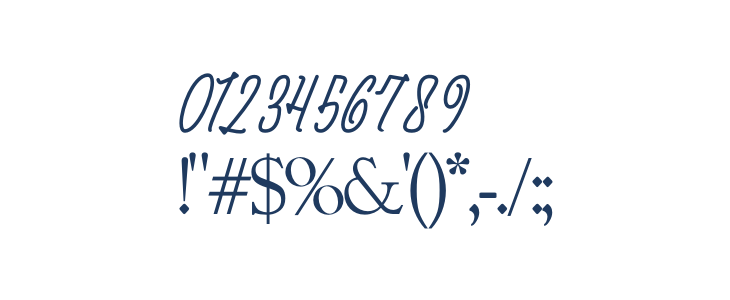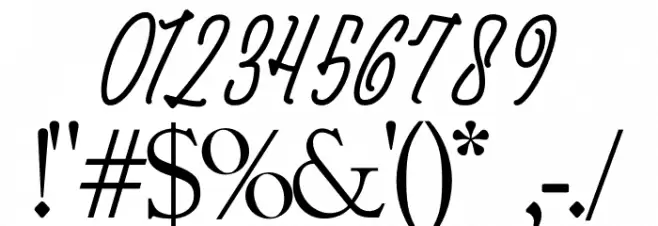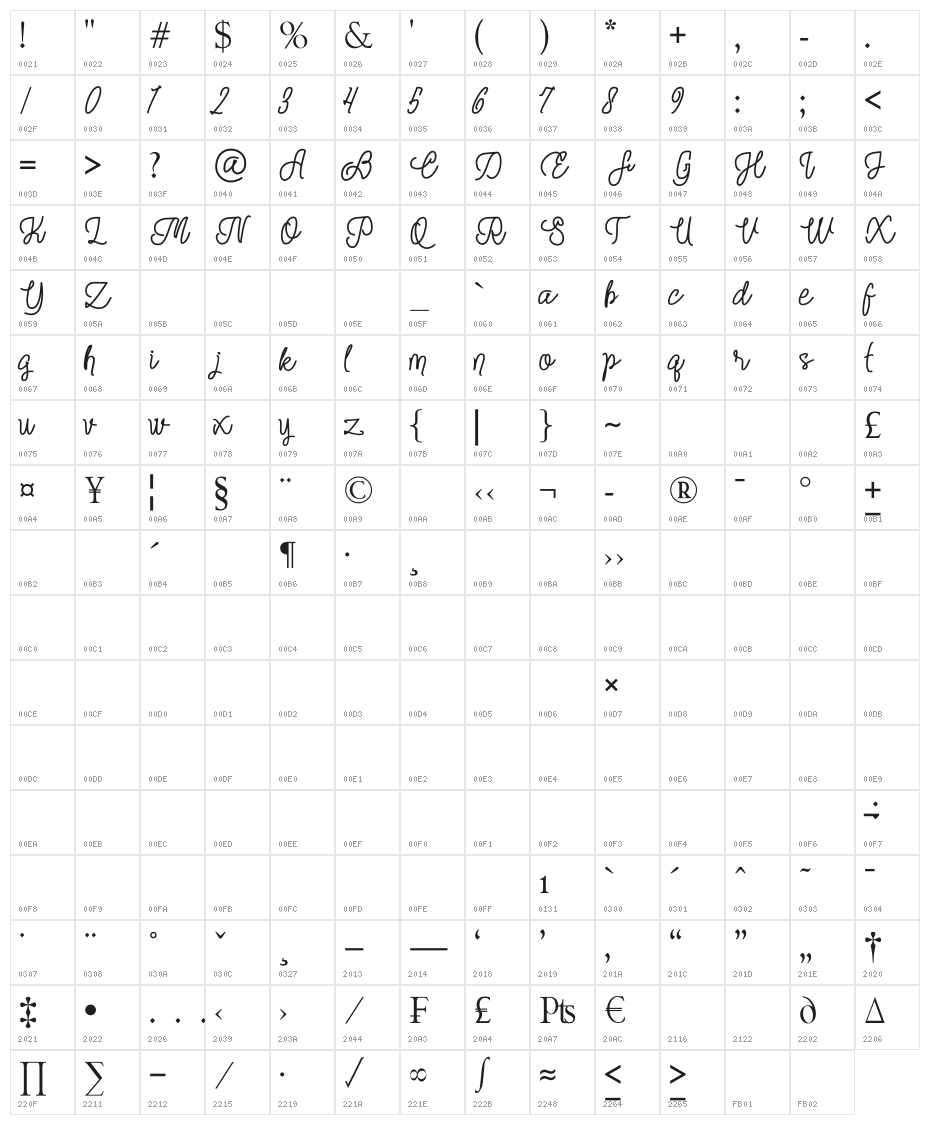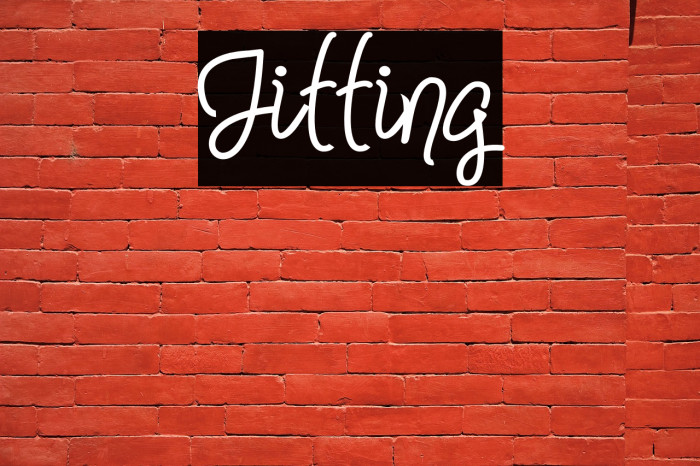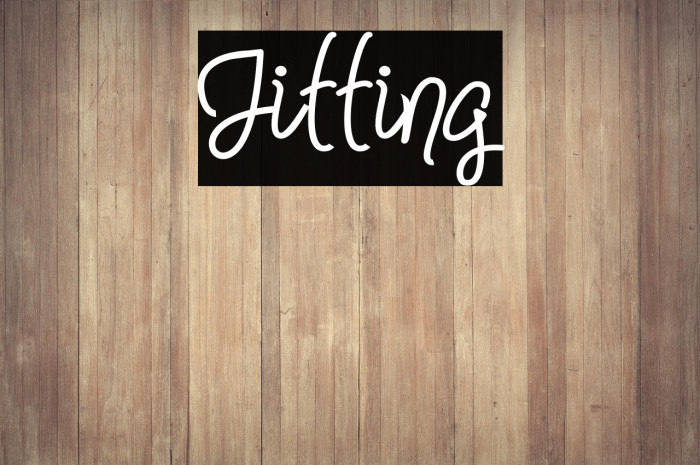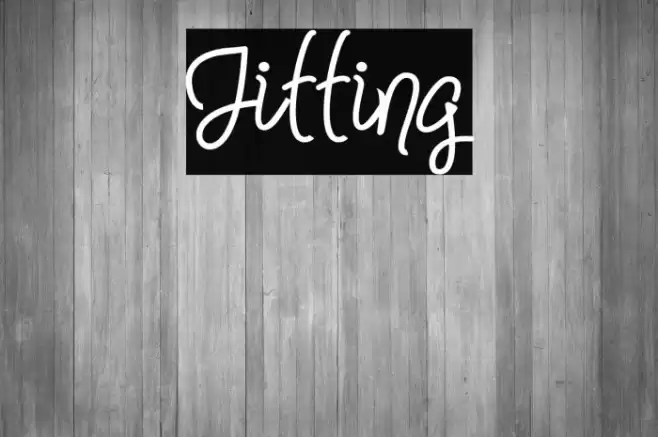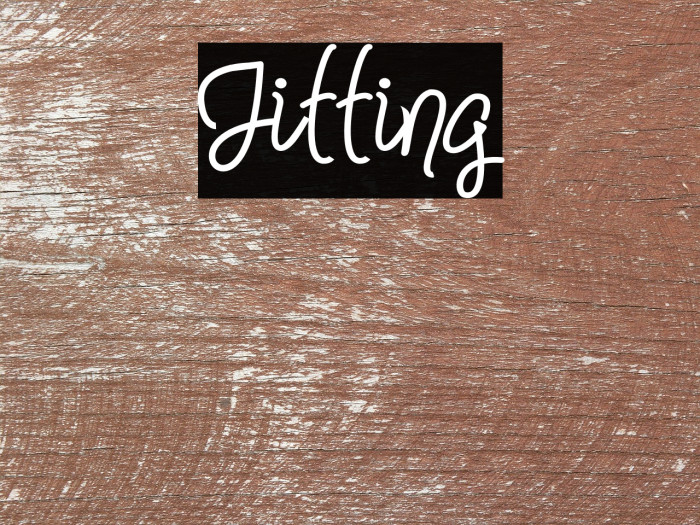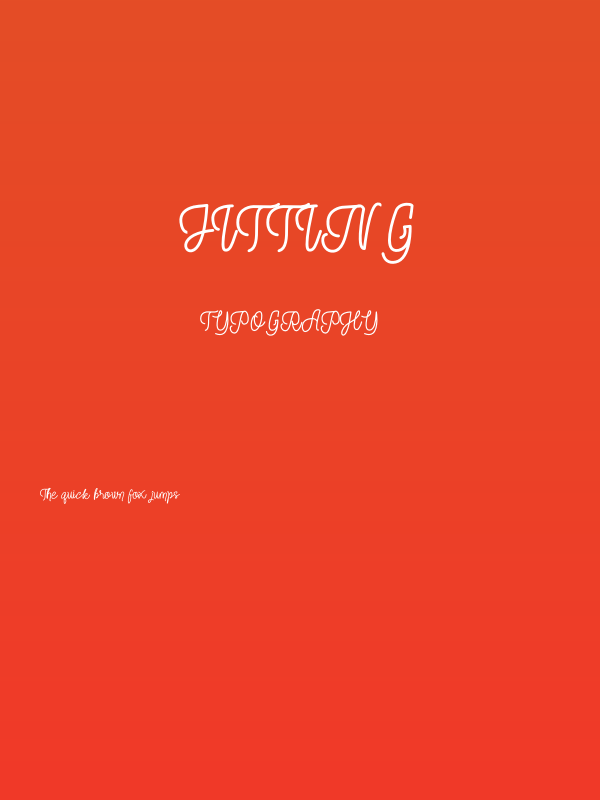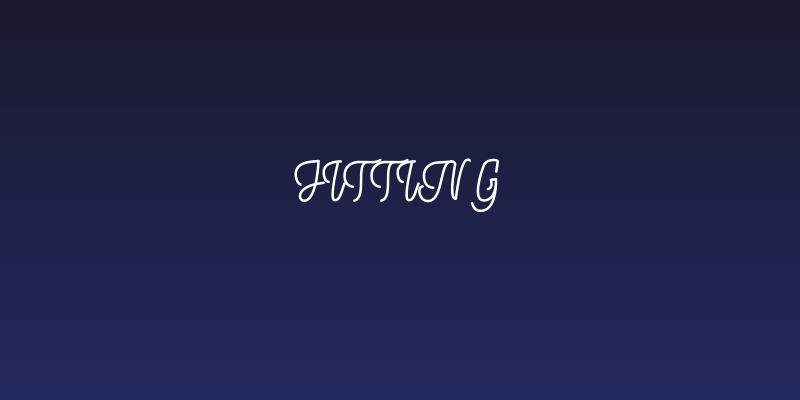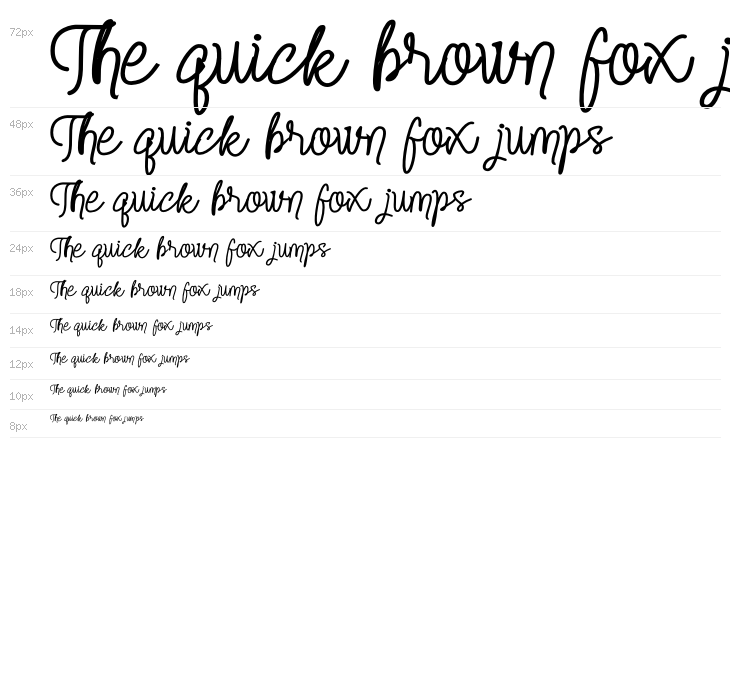
Jitting Font
Jitting Description
This font features a lively and dynamic script style, characterized by its fluid and connected letterforms. The uppercase letters exhibit a graceful loop and curve, while the lowercase letters maintain a consistent flow, enhancing readability. The numerals are well-integrated into the script style, offering a cohesive look across all characters. Special characters are thoughtfully designed to match the overall aesthetic, making this font versatile for various applications. Its playful yet elegant appearance makes it suitable for creative and expressive projects.
| Use Case | Logos, Invitations, Social media posts |
| Proposed Projects | Ideal for wedding invitations, greeting cards, branding, and social media graphics. |